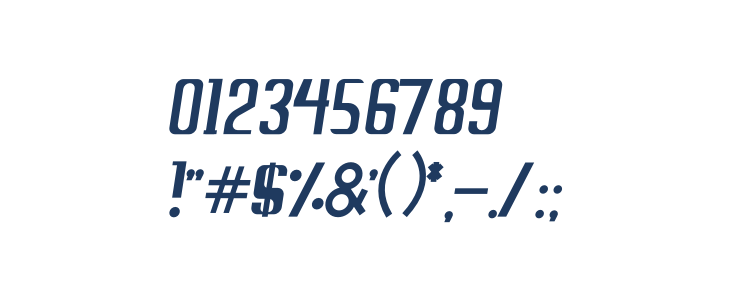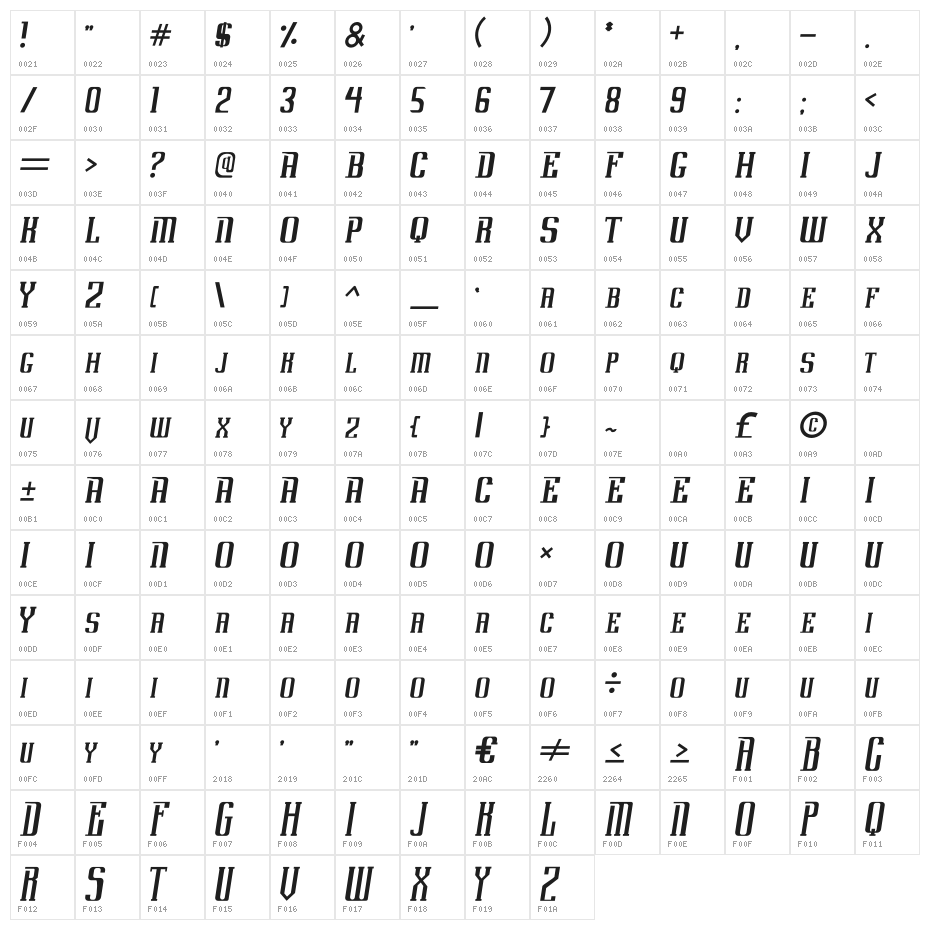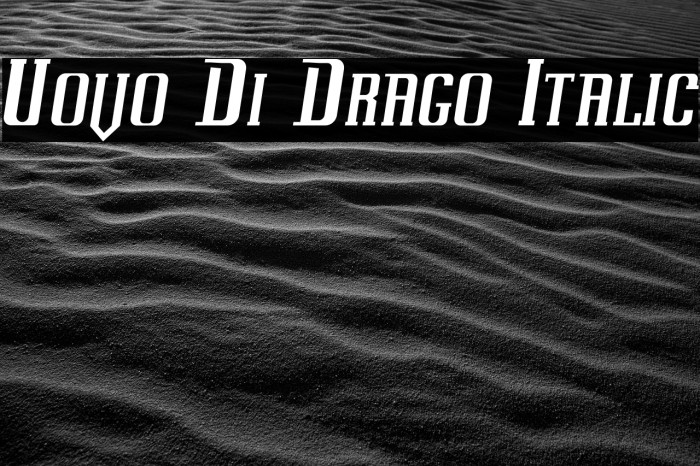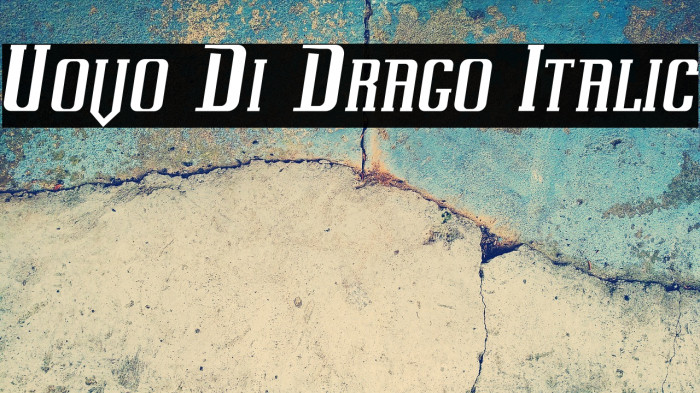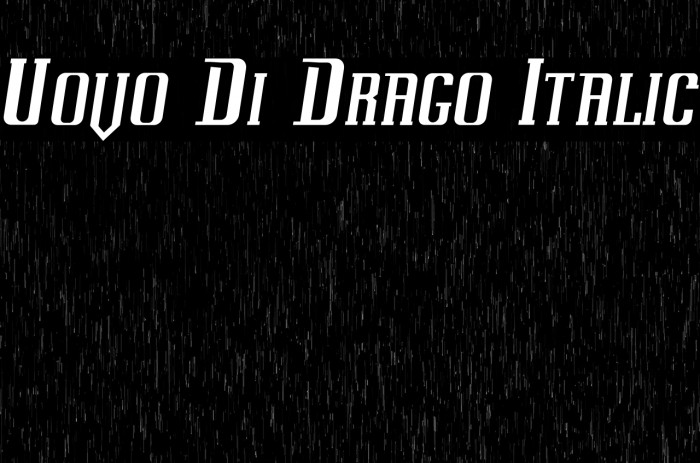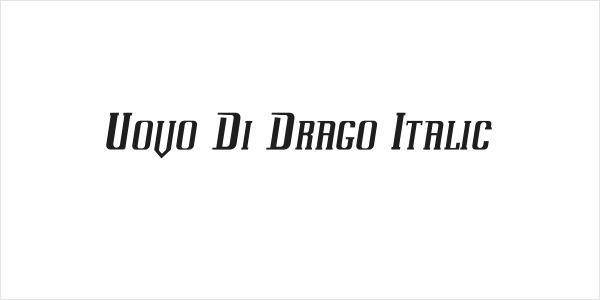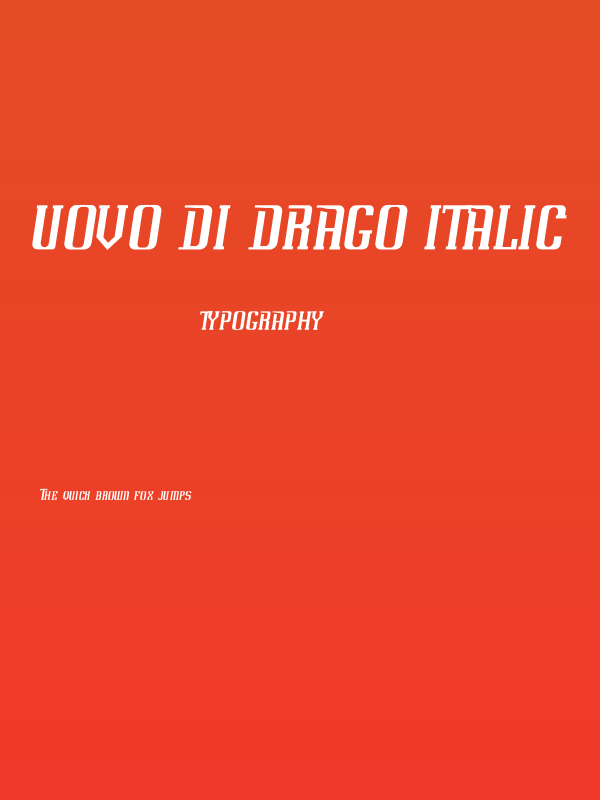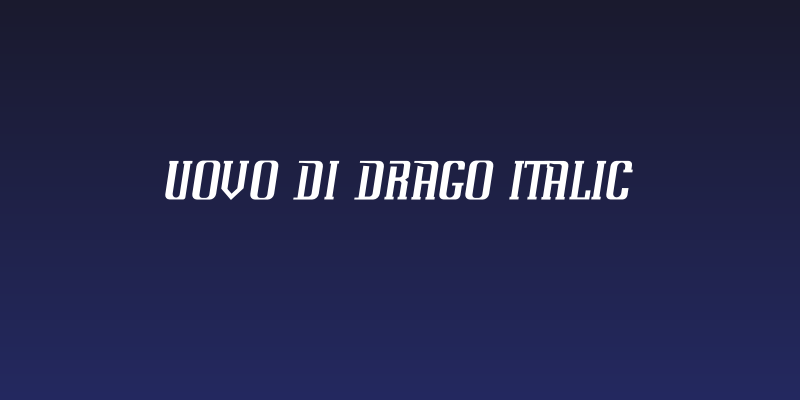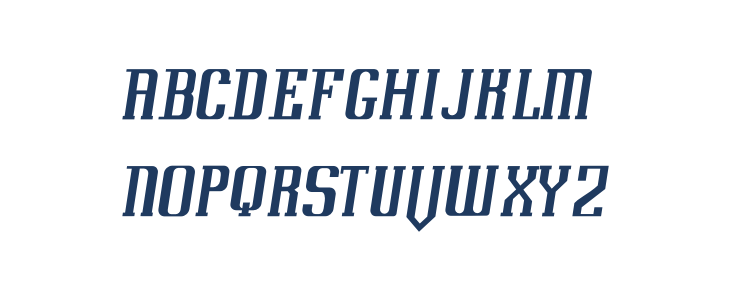
Uovo Di Drago Italic Font
Uovo Di Drago Italic Description
This font features a dynamic and angular design, characterized by its italicized and slightly condensed letterforms. The strokes are bold with a medium contrast, giving it a strong and impactful appearance. The uppercase and lowercase letters maintain a consistent slant, enhancing the italic style. The numerals and special characters are designed to match the overall aesthetic, providing a cohesive look across all glyphs. This font's unique style makes it suitable for projects that require a bold and modern touch.